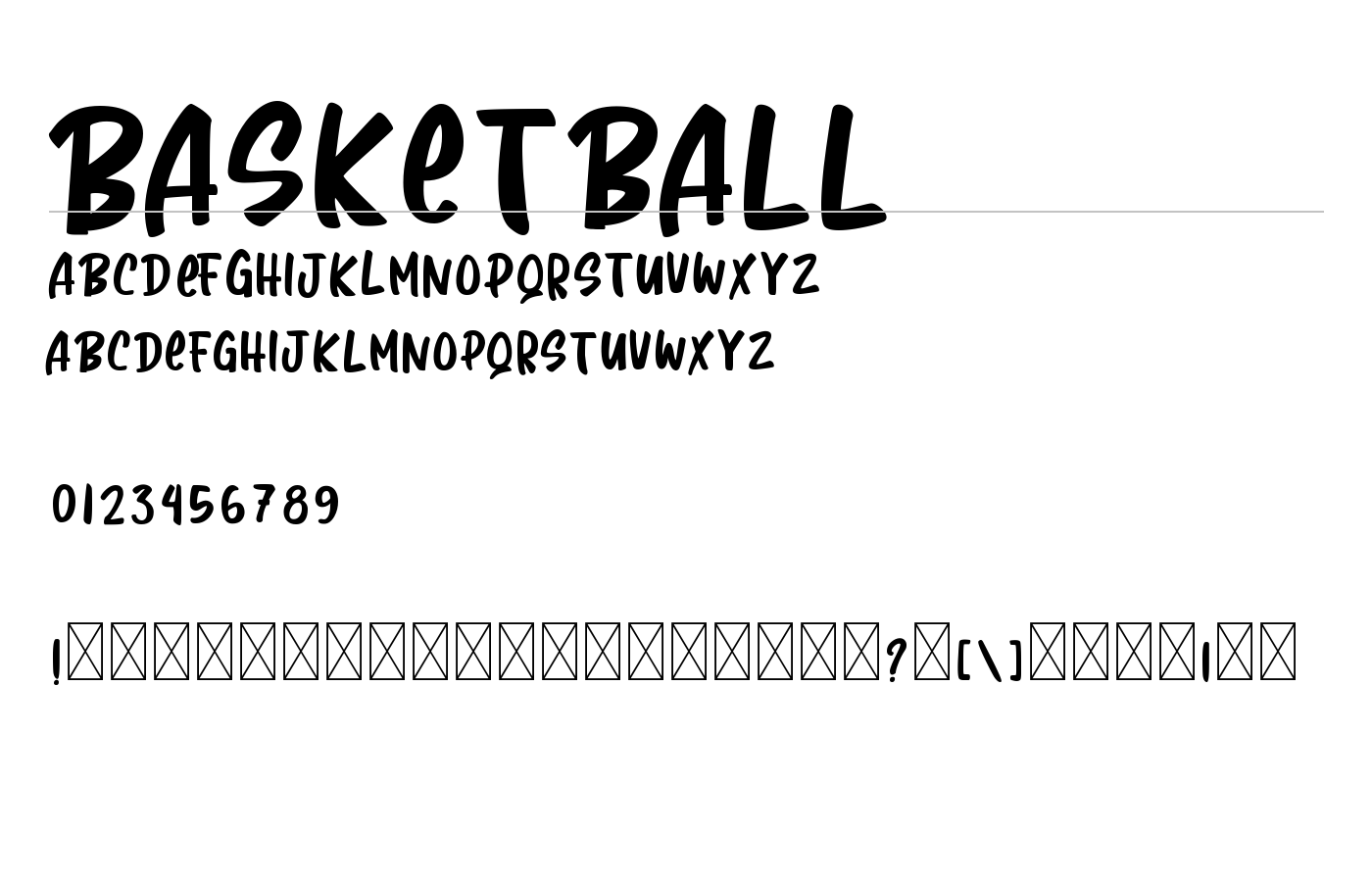
Basketball Font is a playful, handwritten sans serif with bold, casual strokes and a slightly condensed width, giving it energetic and sporty vibes. Its uneven, dynamic letterforms and consistent stroke weight make it perfect for informal, youthful designs like sports branding, posters, and playful headlines. This font captures a fun and lively spirit, ideal for grabbing attention while maintaining readability.
Basketball Font
About Basketball Font